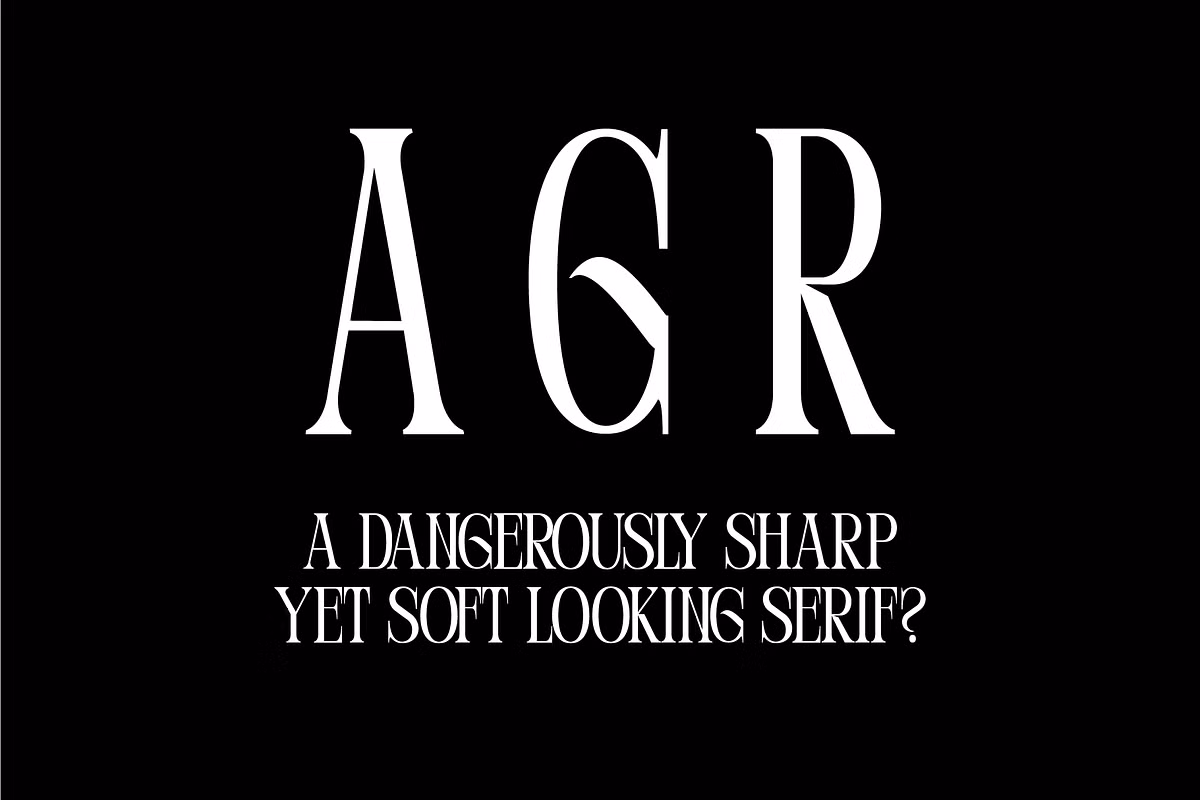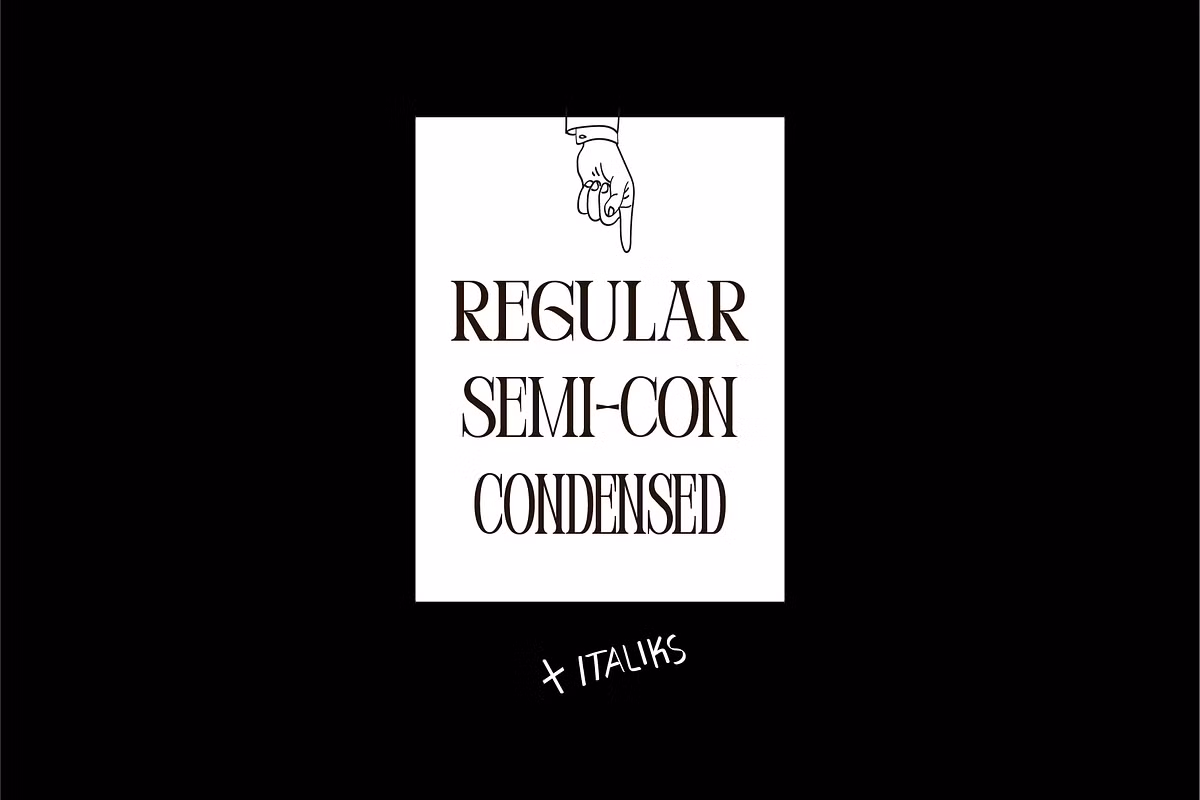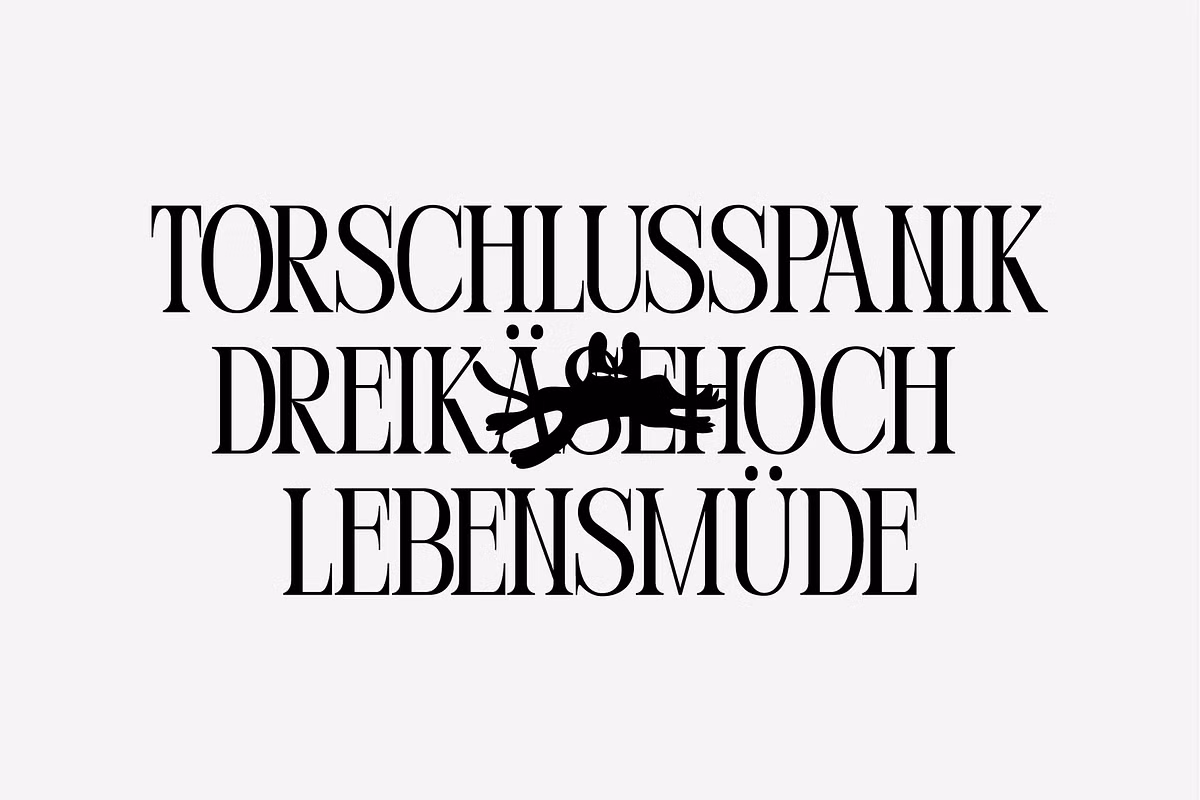
Discover Perandory: A Unique Blend of Past and Present
Do you want a font that feels vintage but also feels modern? Perandory is a typeface that can lift your design work. Perandory is more than a typeface; Perandory celebrates lettering. Perandory mixes style with style. I used Perandory in a poster. The font gave the piece a fresh yet classic feel. This article shows the features of Perandory, the ways you can use the font, and how you can add the font to your projects.
I wonder what makes Perandory stand out from the competition? Perandory is a typeface with a serif style. The design of Perandory uses turns and bold shapes that stand out. The things that set Perandory apart are:
Unique Characteristics
- Hybrid Design: Perandory mixes the letters with the new design parts. Perandory works for projects. I find Perandory for tasks.
- The font has serifs and sharp angles: The font looks interesting. The font gets attention.
- Upper-case Only: I see that Perandory only uses the upper-case letters now. Perandory uses the upper-case letters and those upper-case letters make the text look bold.
Font Styles and Weights
I notice that Perandory offers a range of styles. I notice that Perandory makes the options fit design needs:
- Regular: The Regular style works well for use. The Regular style keeps the font’s look. The Regular style stays easy to read.
- Condensed: I find Condensed style works well when the space is tight. Condensed style lets me use the font effectively and keep the look.
There is one weight now. I like that the styles are versatile. The styles let you try uses from headlines to branding materials.
Applications of Perandory in Design
I have seen Perandory’s work in many design projects. You can use Perandory’s aesthetic in practical ways. Here are some practical applications:
Branding and Logos
I think using Perandory for branding can help a business stand out in the marketplace. Perandory’s distinctive look can convey personality and creativity making Perandory ideal for:
- Artisanal products
- Creative agencies
- Fashion brands
Posters and Advertisements
I have seen the look of Perandory work on posters and ads that need quick attention. The unique style of Perandory helps get a message across. The style of Perandory catches the eye.
Social Media Graphics
In the age of media, the standout graphics you use are crucial. Perandory adds a touch to the posts you make. Perandory makes the posts memorable and easy to share.
How to Effectively Use Perandory
You can add Perandory to your projects without trouble if you follow a method. Here are some tips to get the most out of Perandory:
- Contrast with Simplicity: Pair Perandory with simpler fonts to ensure readability and maintain focus on your message.
- Limit Text Usage: Perandory is case. I recommend using Perandory a little for the headlines or the key points, then the body text. I keep Perandory out of the body text. Use Perandory where Perandory matters.
- Color Coordination: I pick color palettes that match the font. The color palettes make the font easier to see and look good.
Conclusion: Embrace the Uniqueness of Perandory
Perandory is more than a font. Perandory blends the old Albanian letter shapes with a style. I have tried Perandory in a logo. The design felt strong. I have also used Perandory on a poster. The result was clear and bold. If you are designing a logo, a poster, or a social media image you can add Per